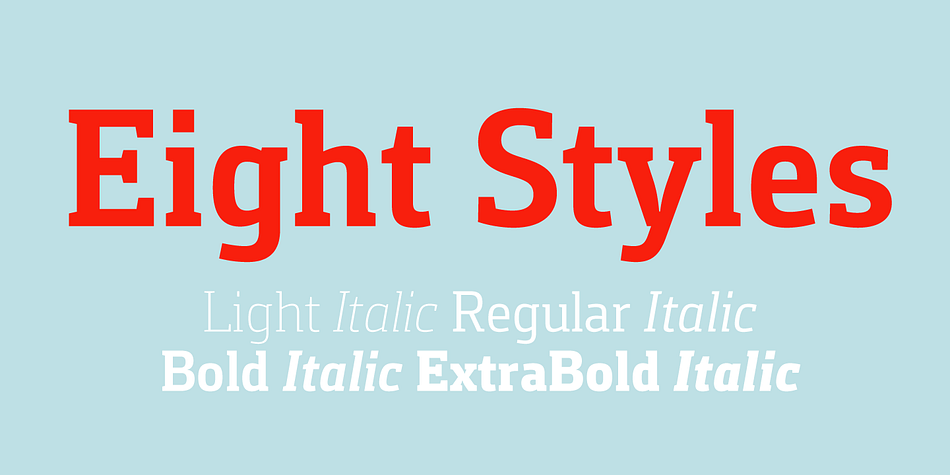
Foral Pro
Foral Pro is a slab serif font family. This typeface has eight styles and was published by Rui Abreu.
Foral Pro is an economic slab serif typeface designed for text and caption sizes.
It features pronounced ink-traps that open the insides of some of the letters, to avoid the clogging of black, and allow for more condensed shapes.
The serifs are shorter than usually seen in slab serif fonts.
They function more as a reinforcement of the stroke ends, making the letter shapes clear and distinct, while attaining a clean sans-like feeling in text settings.
To also look good on bigger sizes, the ink traps were carefully rounded to be a pleasant counterpoint to the geometric rigidity of the predominant straight lines.
For more sophisticated typesetting, Foral Pro comprises eight fully featured OpenType fonts, including small caps, eight figure styles, superscript letters and discretional ligatures.
Displaying the beauty and characteristics of the Foral Pro font family.
Foral Pro is an economic slab serif typeface designed for text and caption sizes. It features pronounced ink-traps that open the insides of some of the letters, to avoid the clogging of black, and allow for more condensed shapes.
The serifs are shorter than usually seen in slab serif fonts. They function more as a reinforcement of the stroke ends, making the letter shapes clear and distinct, while attaining a clean sans-like feeling in text settings.
To also look good on bigger sizes, the ink traps were carefully rounded to be a pleasant counterpoint to the geometric rigidity of the predominant straight lines.
For more sophisticated typesetting, Foral Pro comprises eight fully featured OpenType fonts, including small caps, eight figure styles, superscript letters and discretional ligatures.